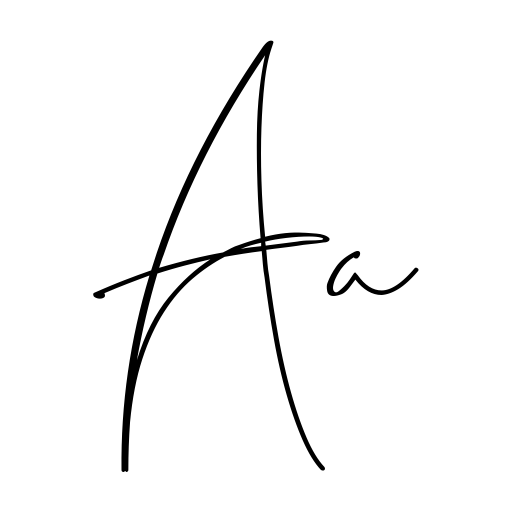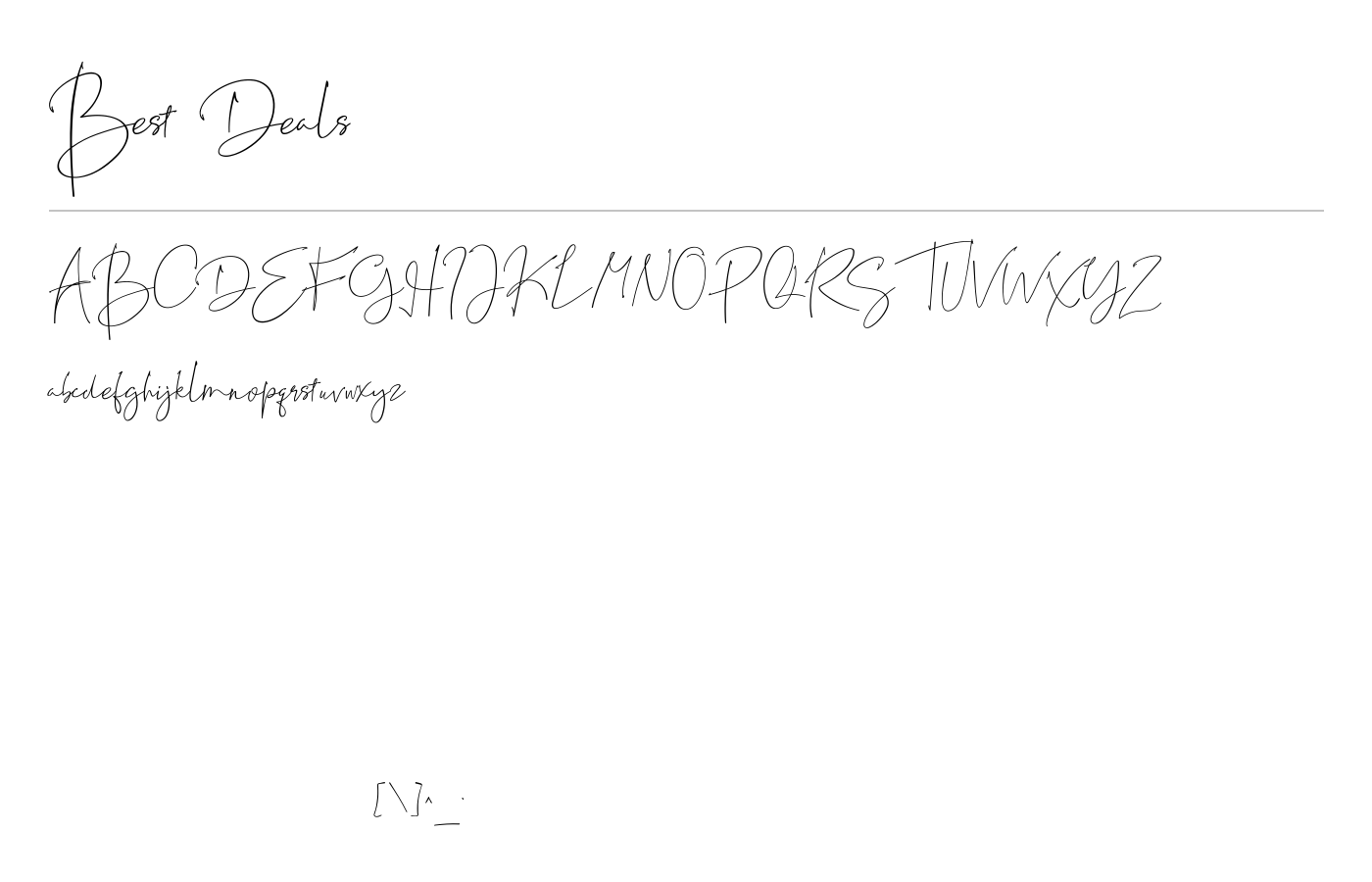
Best Deals Font is a delicate, handwritten script with a light and airy feel that combines elegance with a casual charm. Its slender, flowing letterforms and graceful strokes make it perfect for personal branding, invitations, and stylish logos where a touch of sophistication and warmth is desired. This font works best in designs that seek an intimate, approachable look without sacrificing refined beauty.
Best Deals Font
About Best Deals Font